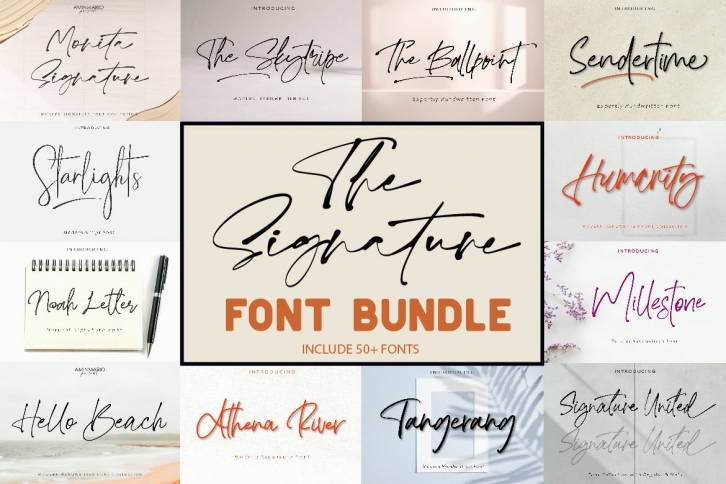
The Signature Bundle Sale FONT Download
The Signature Bundle Sale Font Download
The Signature Bundle Sale is a gorgeous font that was realeased on September 1, 2021. The font can be used in many style contexts and design environments. Perfect for invitations, magazines, websites, logos, and more! It was designed by aminmario and the file size is 18.58 MB. Thanks for checking out this font!